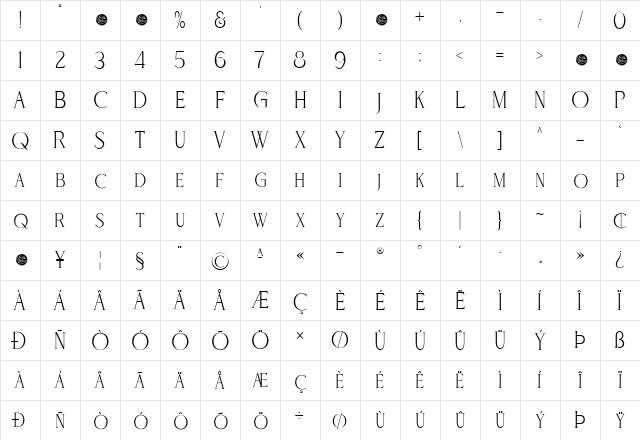
NEVOCLARA Regular
Design Context for NEVOCLARA Typeface
NEVOCLARA is a composed and adaptable typeface that performs quietly and consistently across a wide range of design contexts.